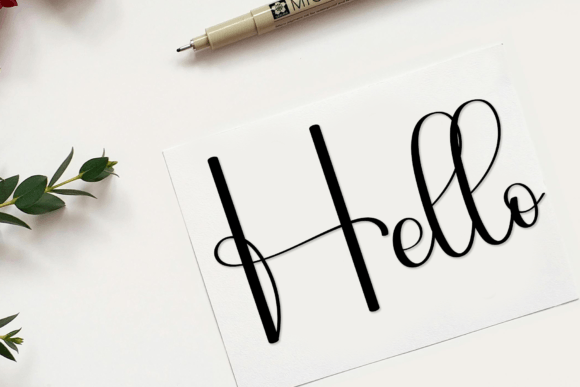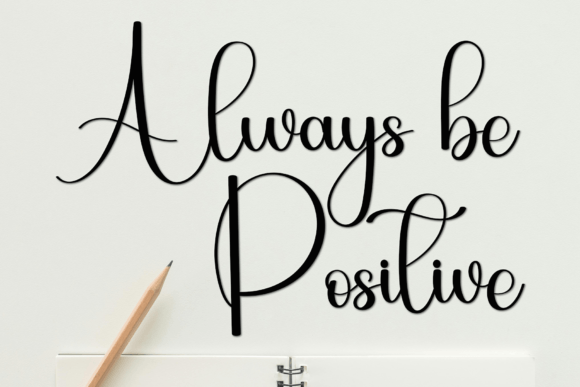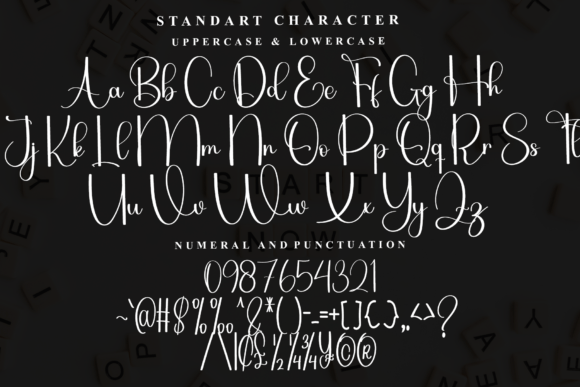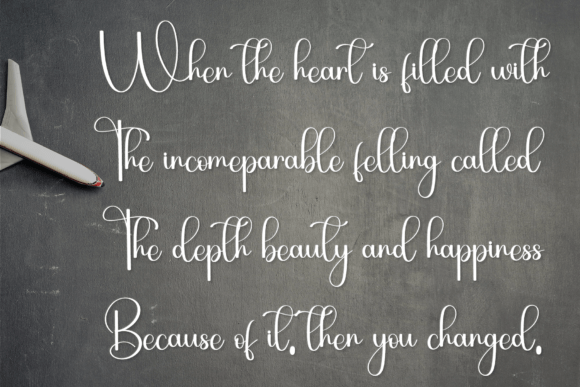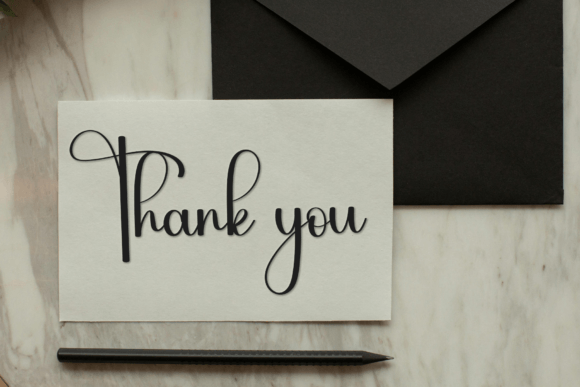
Introducing Happy Birthday Font: The Perfect Elegance for Special Celebrations
Are you tired of using the same old boring fonts for your birthday cards and invitations? Look no further! The Happy Birthday font is here to add a touch of luxury and sophistication to your special celebrations. This fancy handwritten font is designed with elegant and stylish flourishes that will make your designs stand out from the crowd.
What Makes Happy Birthday Font So Special?
The Happy Birthday font is a beautifully crafted typeface that exudes elegance and refinement. Its luxurious feel makes it perfect for creating special birthday cards, invitations, and other celebratory designs. Whether you’re a designer, crafter, or simply someone who loves to create unique and personalized gifts, this font is sure to impress.
One of the key features that sets the Happy Birthday font apart is its elegant and stylish flourishes. These flourishes add a touch of sophistication and whimsy to your designs, making them perfect for special occasions. The font is also highly versatile, allowing you to use it for a wide range of design projects, from formal invitations to playful birthday cards.
Why Designers and Crafters Love Happy Birthday Font
Designers and crafters love the Happy Birthday font for a variety of reasons. Here are a few:
- Unique and exclusive: The Happy Birthday font is a unique and exclusive typeface that will set your designs apart from the crowd. Its elegant and stylish flourishes make it perfect for special occasions and celebrations.
- High-quality: The Happy Birthday font is a high-quality typeface that is designed to produce stunning results. Its clear and crisp lines make it perfect for printing and digital use.
Whether you’re a designer, crafter, or simply someone who loves to create unique and personalized gifts, the Happy Birthday font is the perfect choice for your next project. Its elegant and stylish flourishes make it perfect for special occasions and celebrations, and its ease of use makes it accessible to everyone.